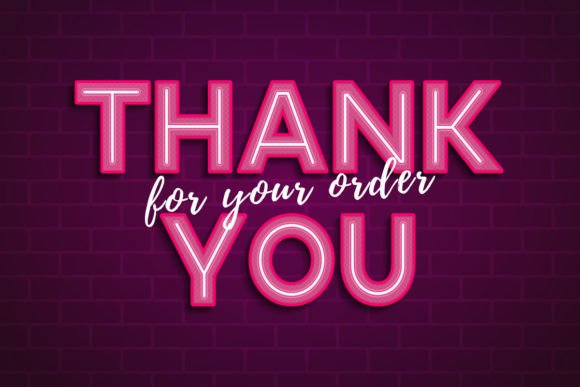
Neon Pink Font
Introducing “Neon Pink Font” – This charming font was created with inspiration from pink neon bulbs. Its vivid hues and sleek letterforms capture the essence of urban neon signs, creating a visually striking and modern aesthetic.